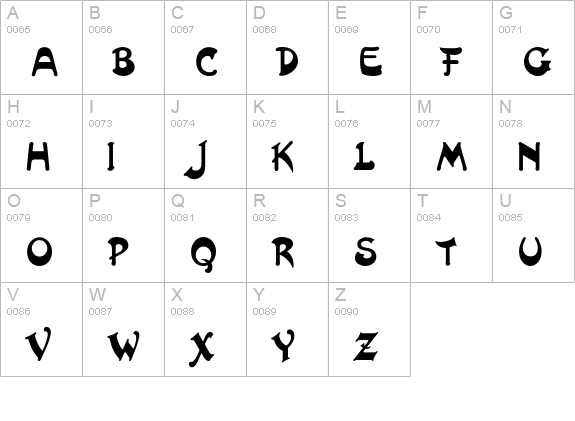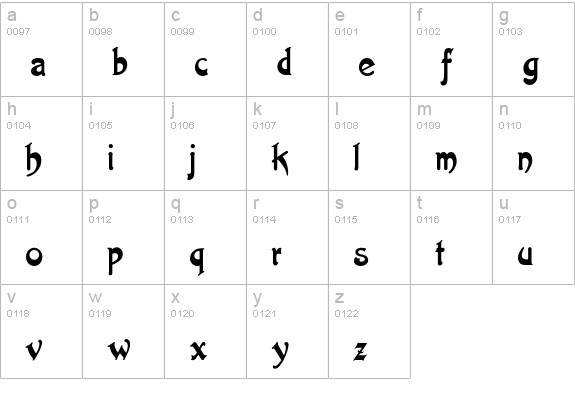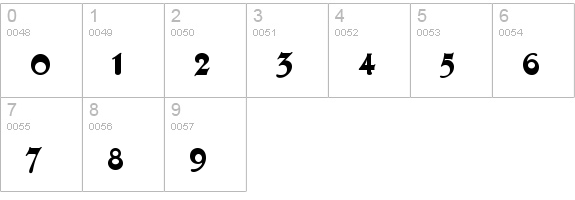
Artistik Std is a stunning and versatile font that exudes creativity and elegance. Its smooth lines and unique design make it perfect for a wide range of projects, from branding to editorial design. This font features a perfect balance of modernity and sophistication, making it a must-have for designers looking to make a statement. What sets Artistik Std apart is not only its aesthetic appeal but also its accessibility. This font is freely available for download at FontsMarket.com, allowing designers to easily incorporate it into their work without any hassle. Whether you're working on a logo, poster, website, or any other design project, Artistik Std is sure to elevate your work and leave a lasting impression. Unlock your creative potential with this remarkable font today!